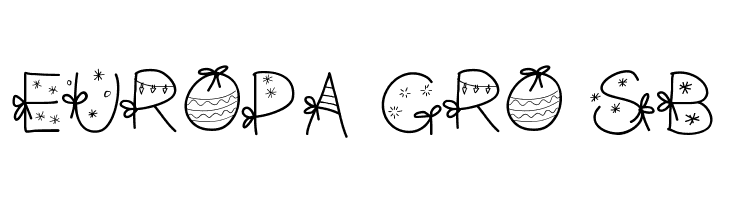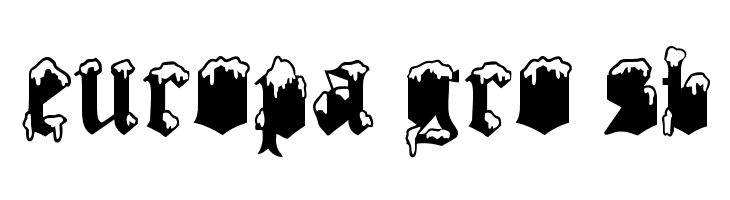
A festive, decorative font with Christmas-themed embellishments on each character.
A festive, Christmas-themed decorative font with playful holiday motifs.
A playful, snow-capped font perfect for winter-themed designs.
A festive, decorative font with Christmas-themed embellishments.
A Gothic font with snow-themed accents, perfect for winter designs.